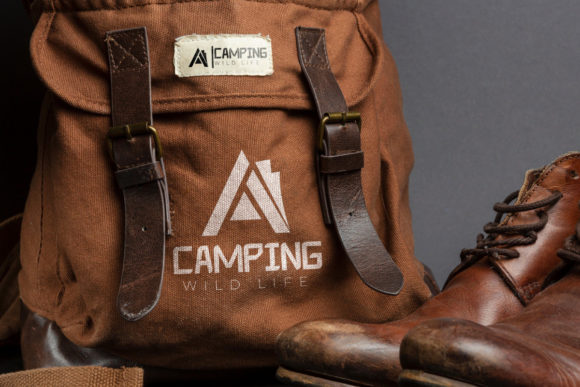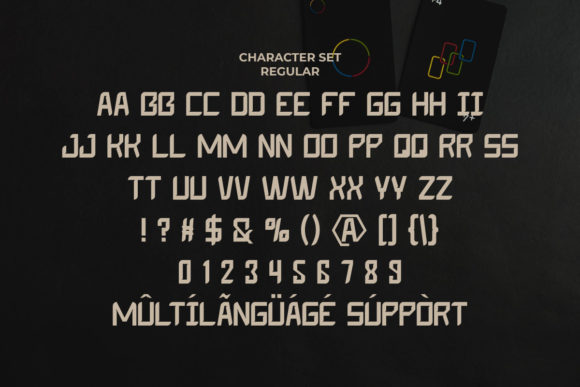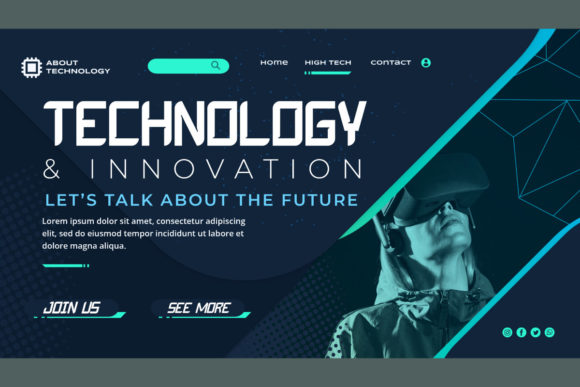
Introduction to Hotfast Font
Have you ever stared at a blank canvas, eager to bring a revolutionary design to life? The spark of creativity can be electrifying, but it’s often the right tools that make all the difference. For designers seeking a futuristic edge, the search for the perfect font can be a long one – until now.
Enter the Hotfast Font, a bold and techno-looking display font designed to elevate any creative project. Whether you’re crafting a logo, printing t-shirts, or developing innovative products, Hotfast Font is the perfect design resource to give your vision a high-quality, futuristic twist. With its sleek lines and versatility, this font is sure to make a lasting impression.
Key Features of Hotfast Font
- High-quality font design for creative projects, suitable for use in various design applications.
- Unique, modern design that adds a touch of sophistication to any creative project.
Honest Review: Hotfast Font
I recently came across the Hotfast Font, and I’m excited to share my thoughts on this design resource. As a designer, I’m always on the lookout for high-quality fonts to elevate my creative projects.
The Hotfast Font is a unique and stylish font that offers a transparent background, making it perfect for overlays and other design elements. Its sleek and modern design is sure to add a touch of sophistication to any project.
- High-quality design with a transparent background
- Perfect for creative projects that require a modern and stylish font
- Wide range of applications, from logos to typography
✨ I was impressed by the Hotfast Font’s versatility and ease of use. It’s a great addition to any designer’s toolkit.
- May not be suitable for projects that require a bold or heavy font
- Some users may find the font’s design too minimalist
⚠️ While the Hotfast Font is a great resource, it’s essential to consider its limitations and ensure it meets the needs of your specific design project.
Overall, I’m pleased with the Hotfast Font and would recommend it to designers looking for a high-quality, modern font.
Use the Hotfast Font in conjunction with other high-quality design resources to create visually appealing designs. Experiment with different font sizes, colors, and combinations to achieve the best results. You can also use the font in conjunction with images and graphics to create engaging visuals.
The Hotfast Font is ideal for use in creative projects, such as logos, branding materials, and marketing materials. It’s also suitable for use in educational materials, such as presentations and reports. Additionally, you can use the font in design projects, such as infographics and social media graphics, where a high-quality and transparent background is required.